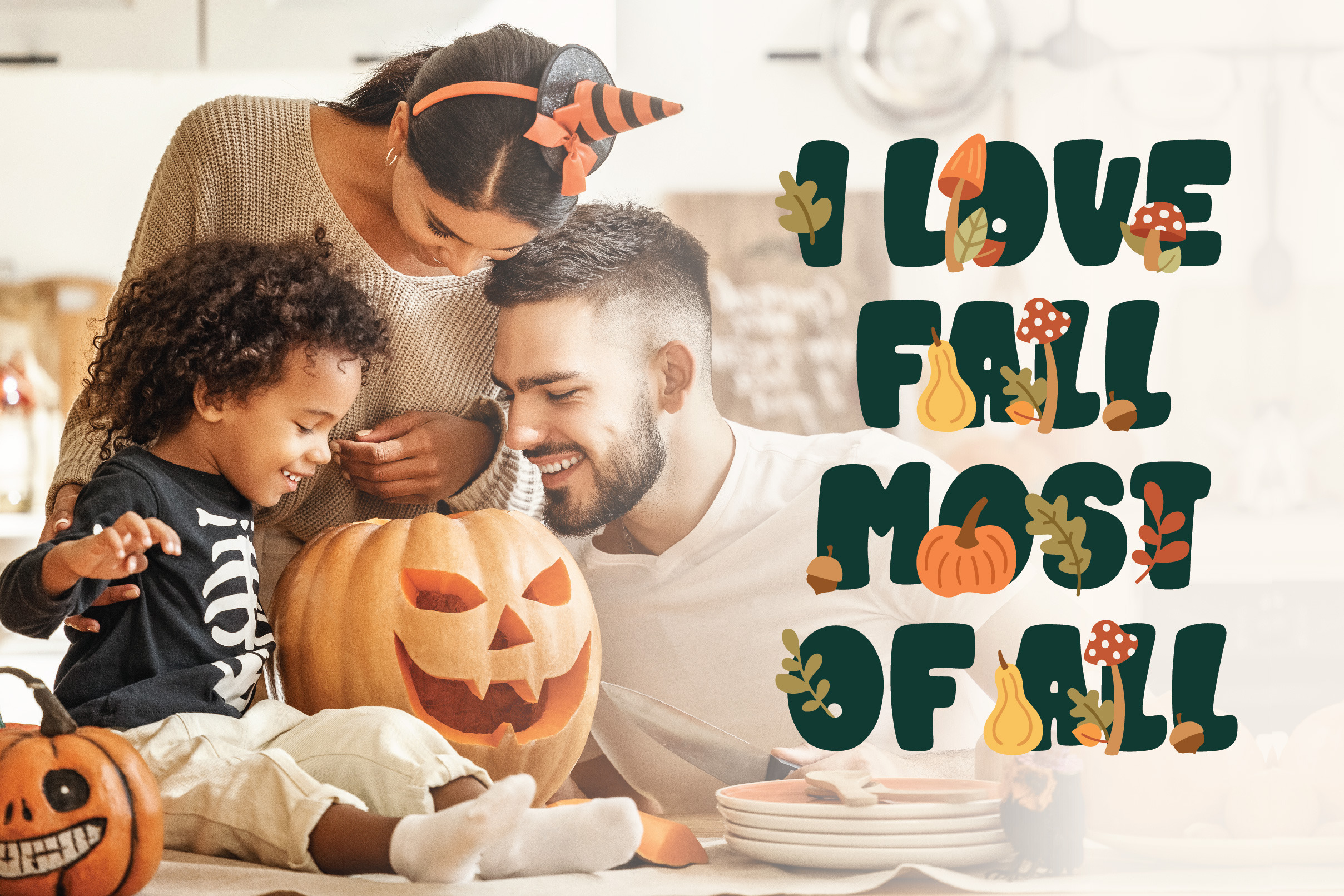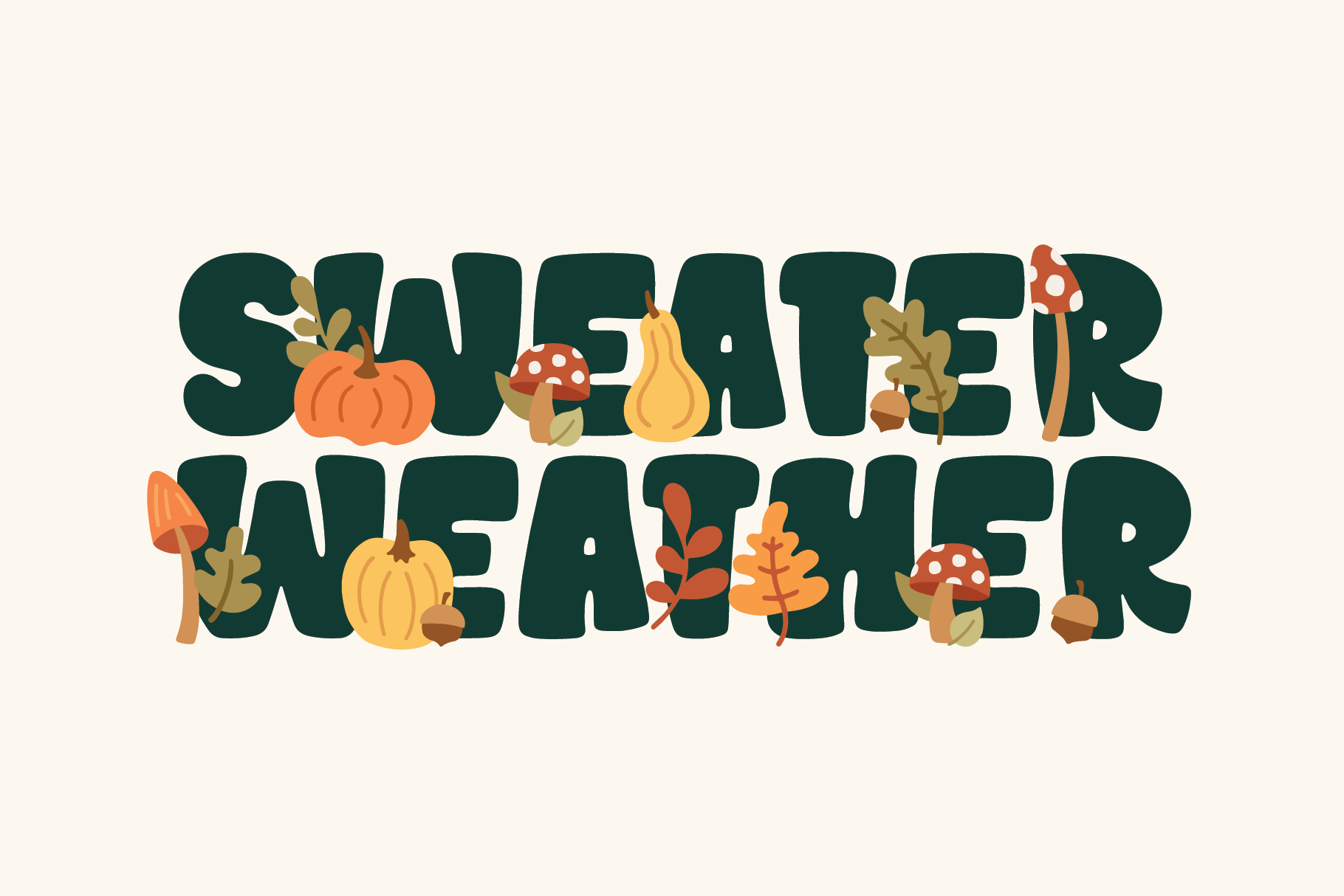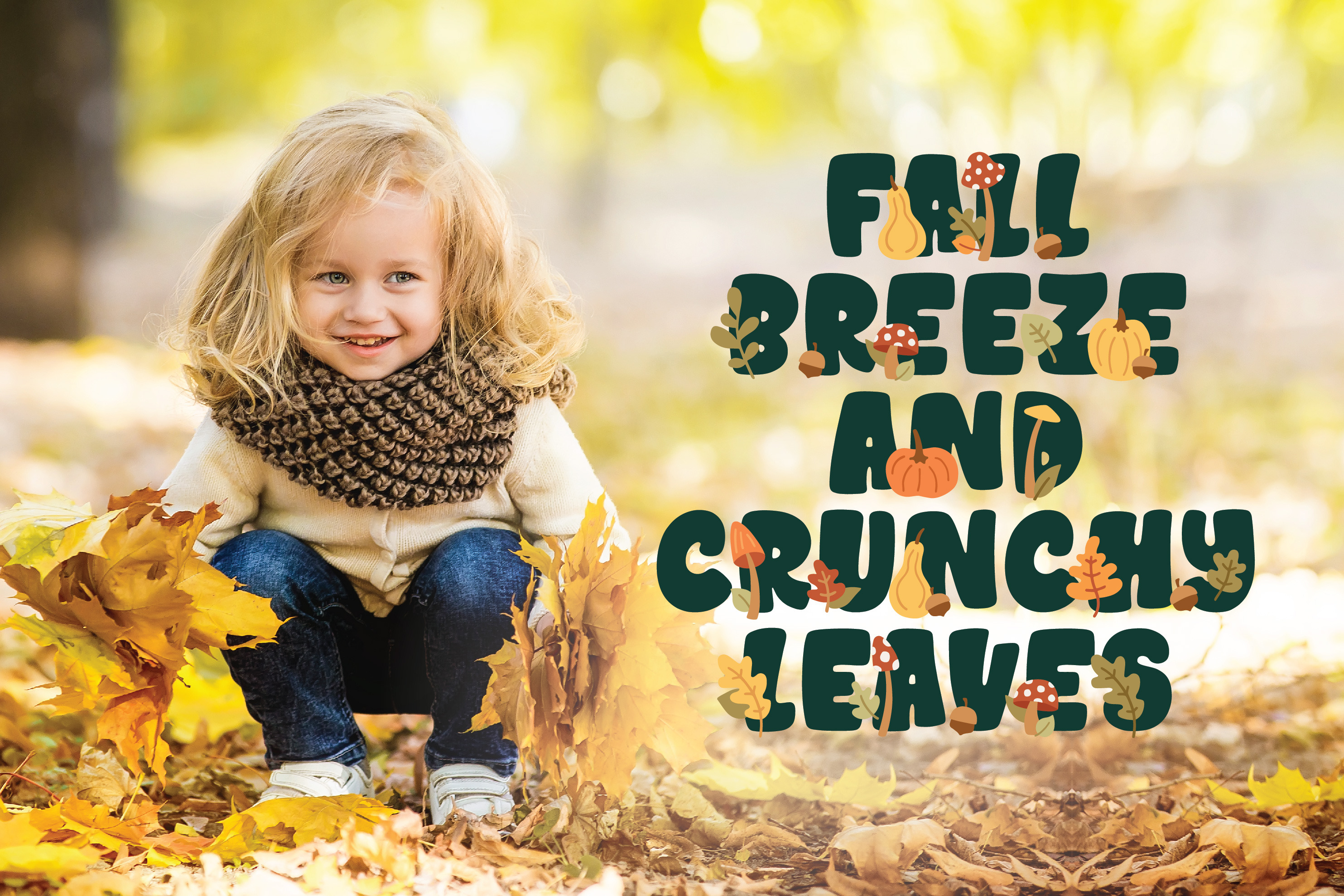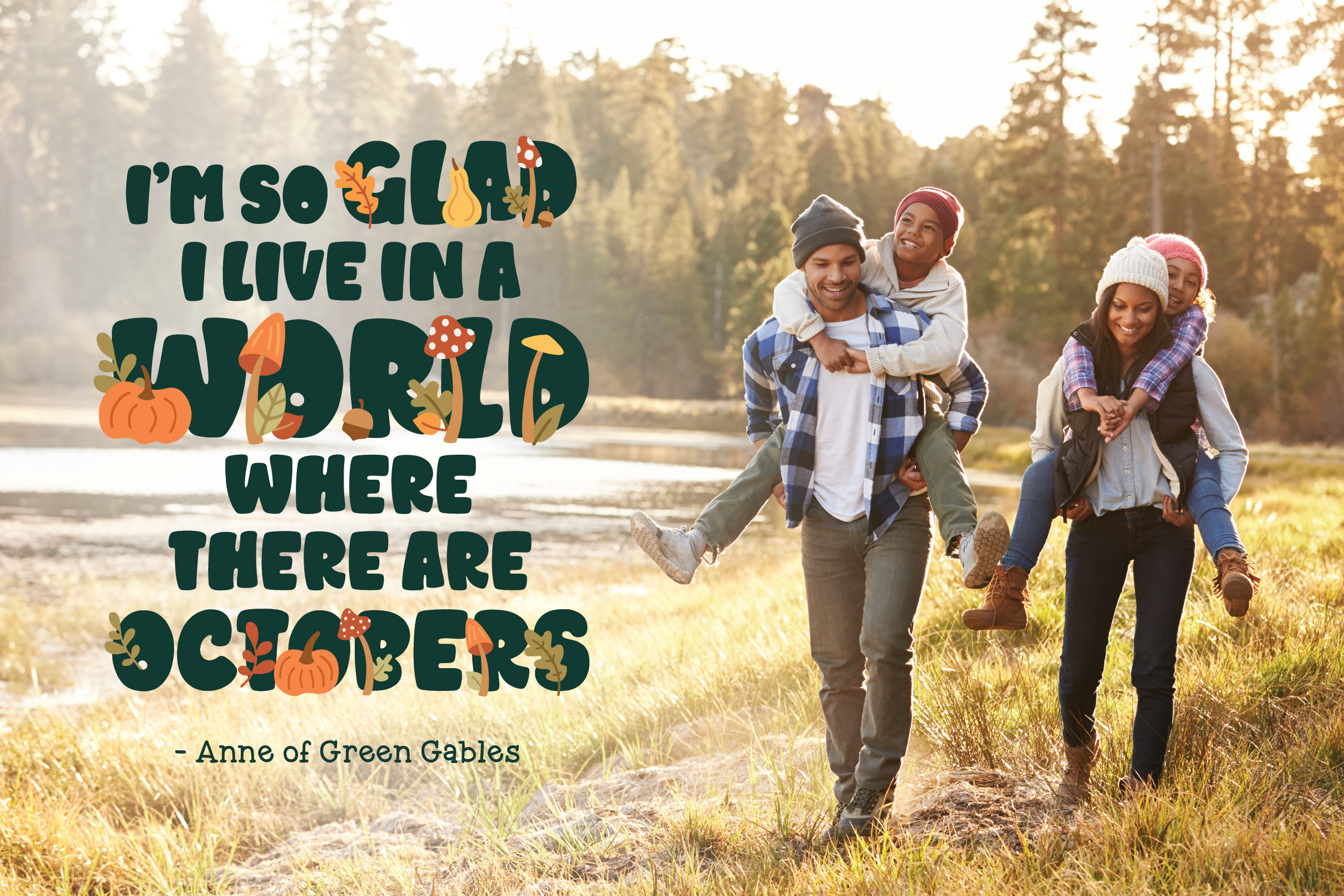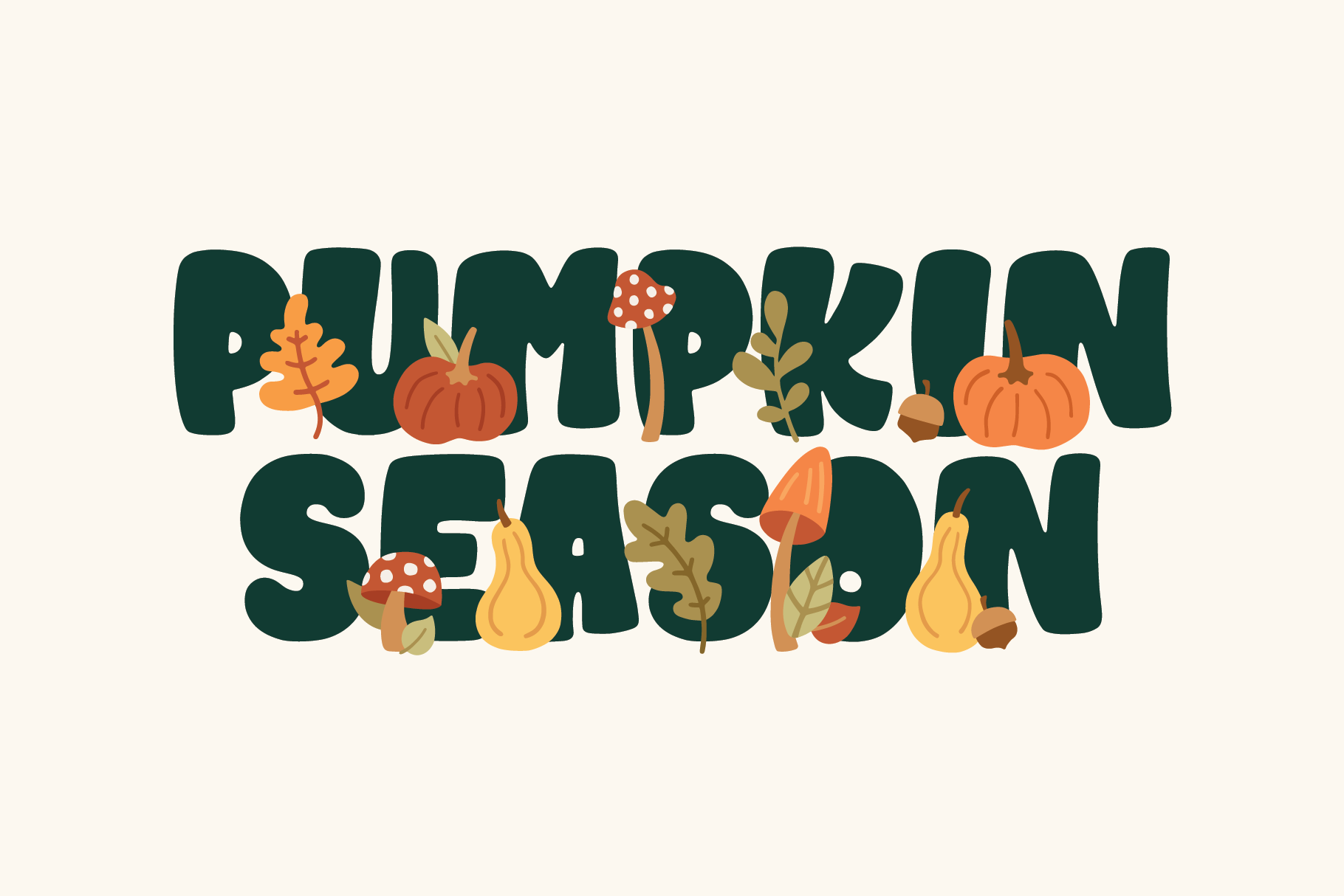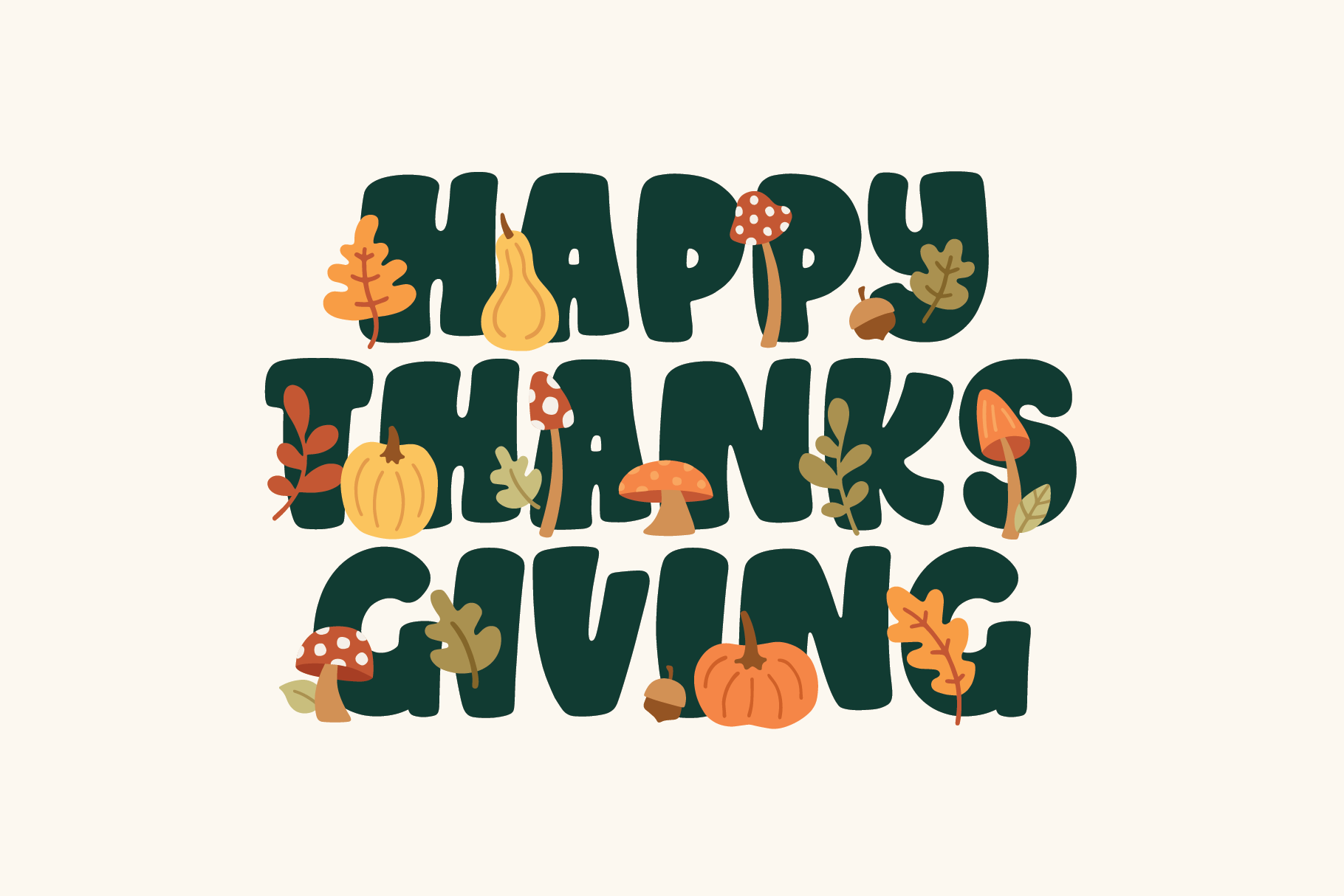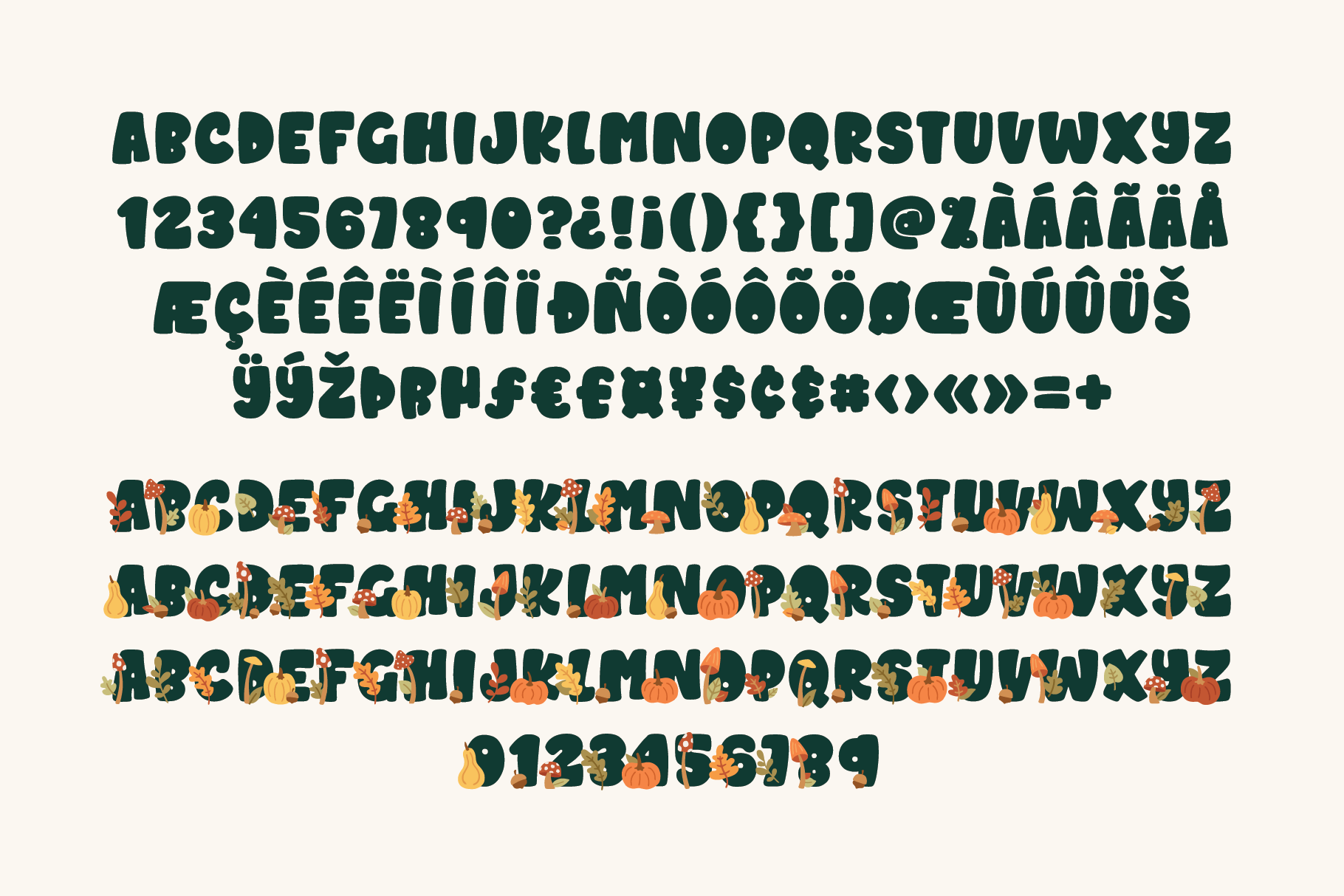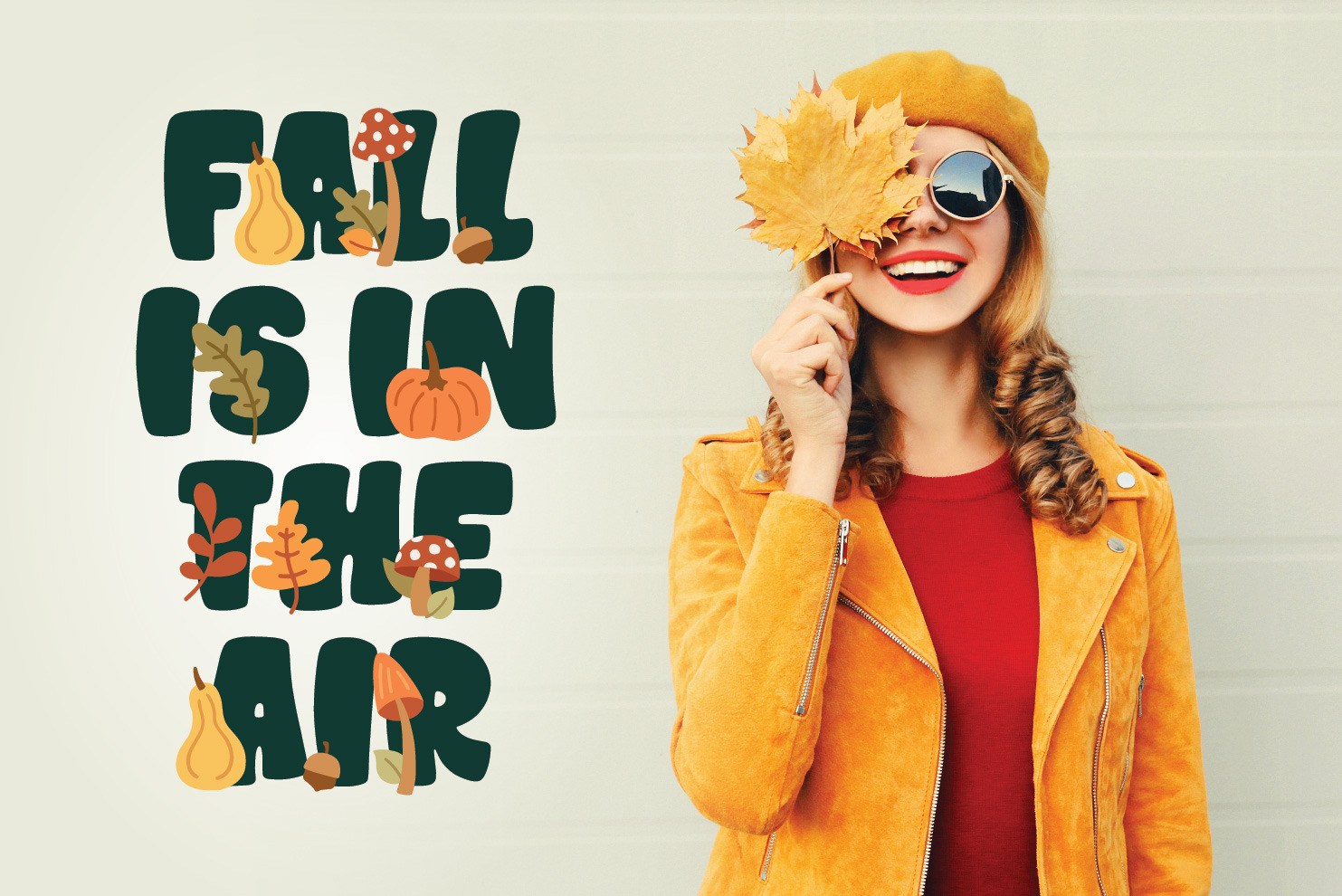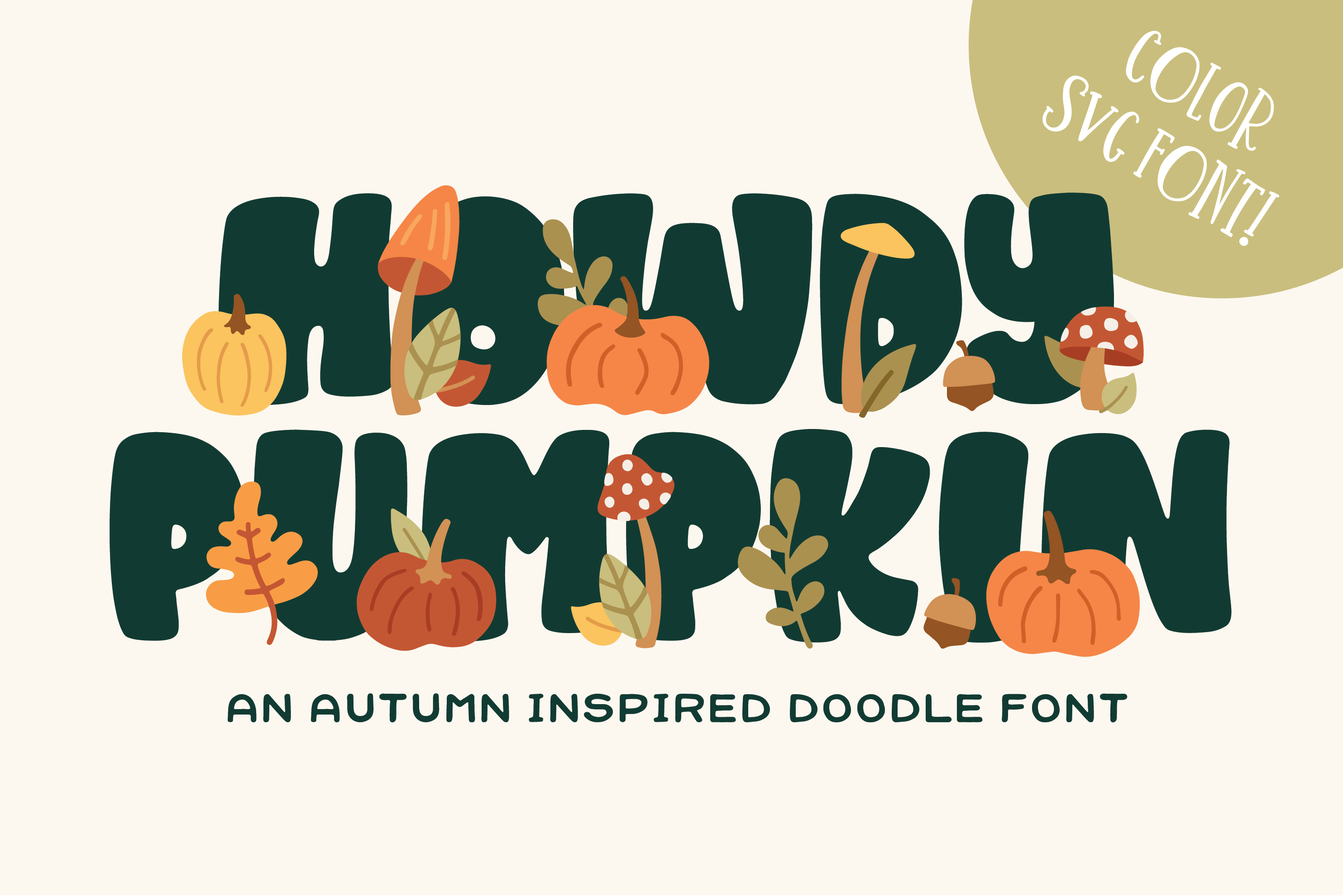
Howdy Pumpkin is an autumn inspired all-caps font. Included in the pack is a simple OpenType version and two color OpenType-SVG versions that have alternates of each letter with different doodles. Mix and match until your design looks just right. The doodles are also included as vector and png files to use in programs that don't support color fonts. OpenType-SVG fonts can be used in programs like Photoshop CC 2017+, Illustrator CC 2018+, or InDesign CC 2019+. - Files Included: - Howdy Pumpkin in OTF format - Howdy Pumpkin Alt1 in SVG-OTF format - Howdy Pumpkin Alt2 in SVG-OTF format - Autumn doodles in .ai .eps .svg and .png formats | Howdy Pumpkin Font | Denise Chandler